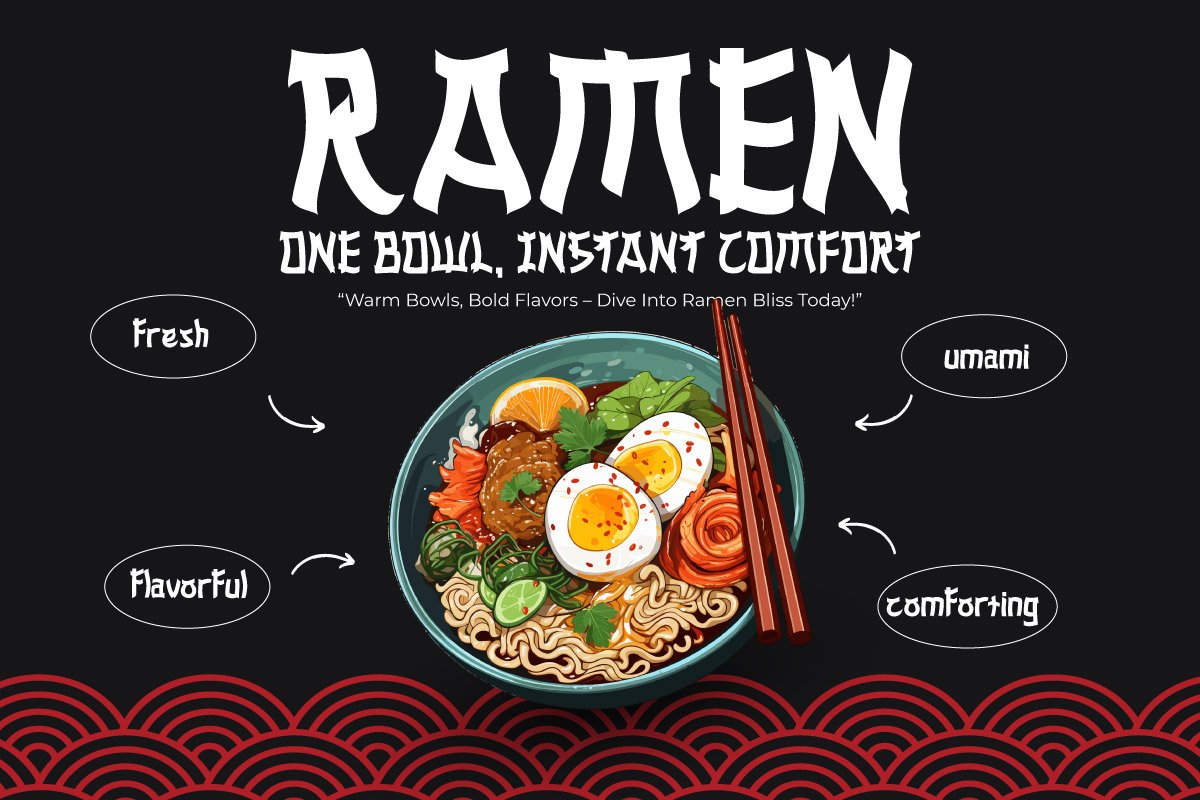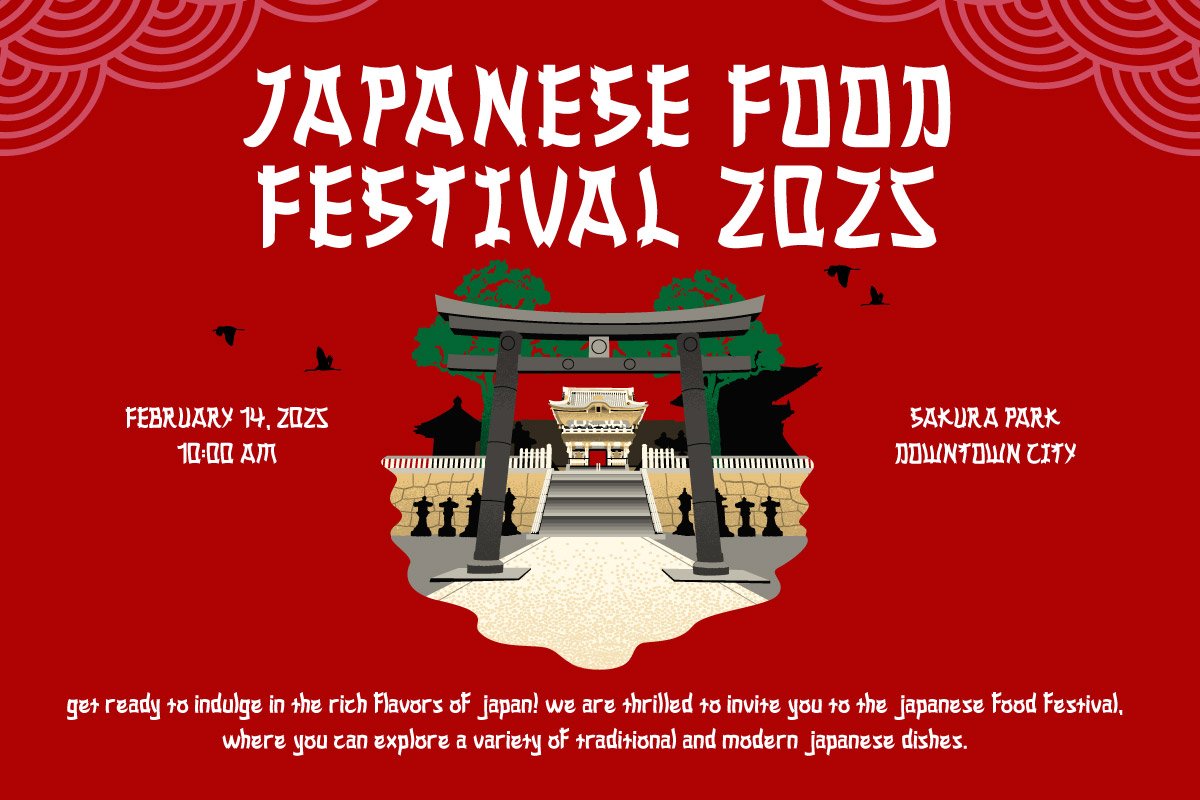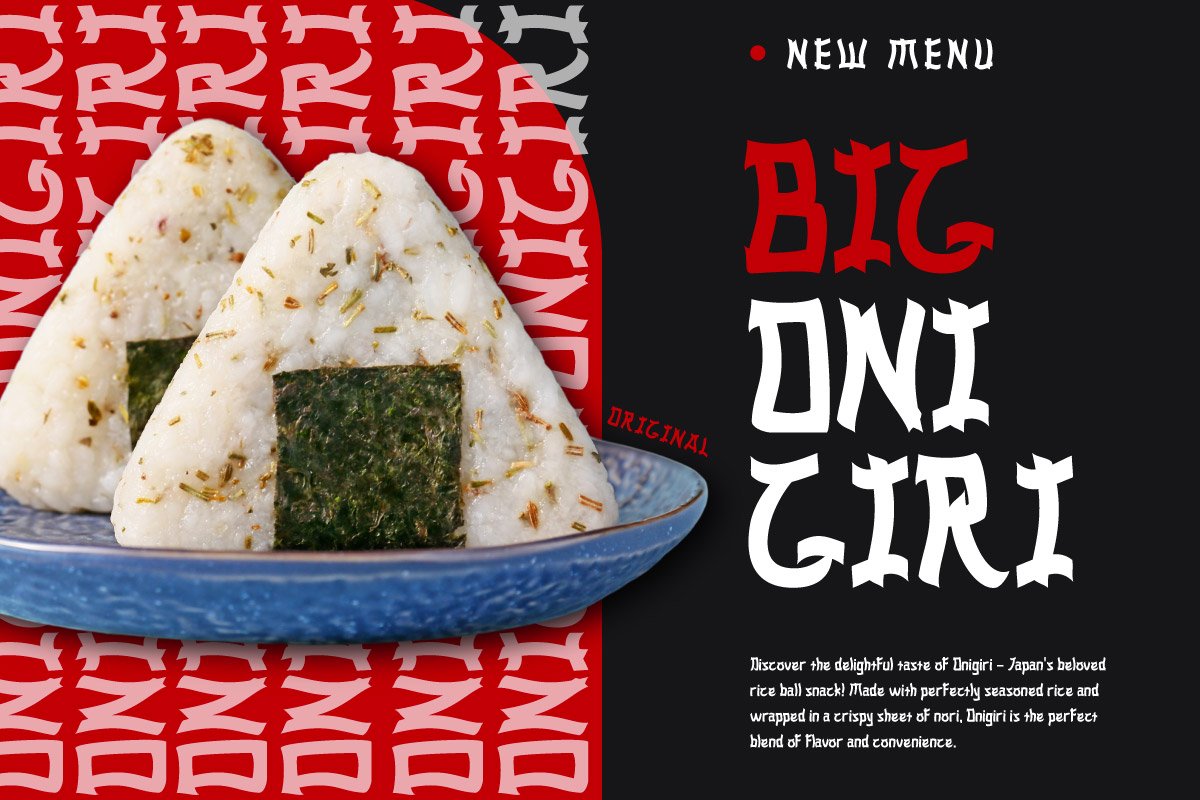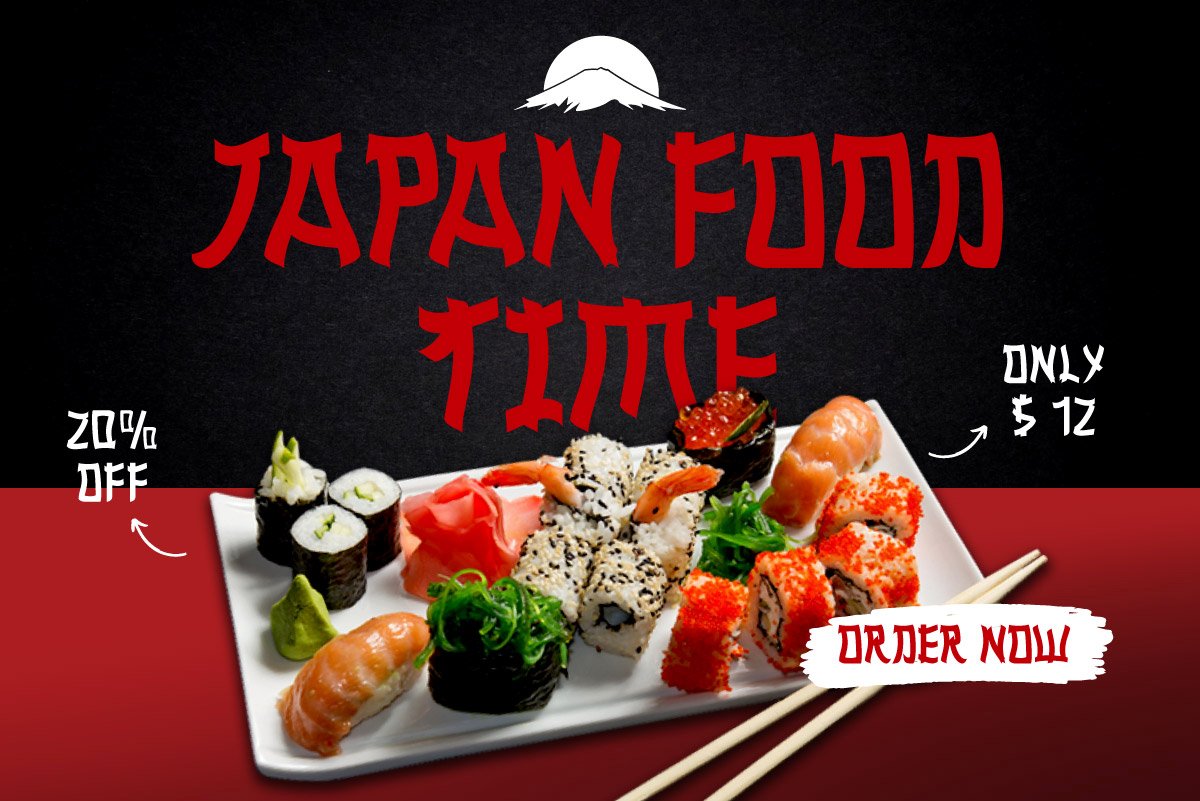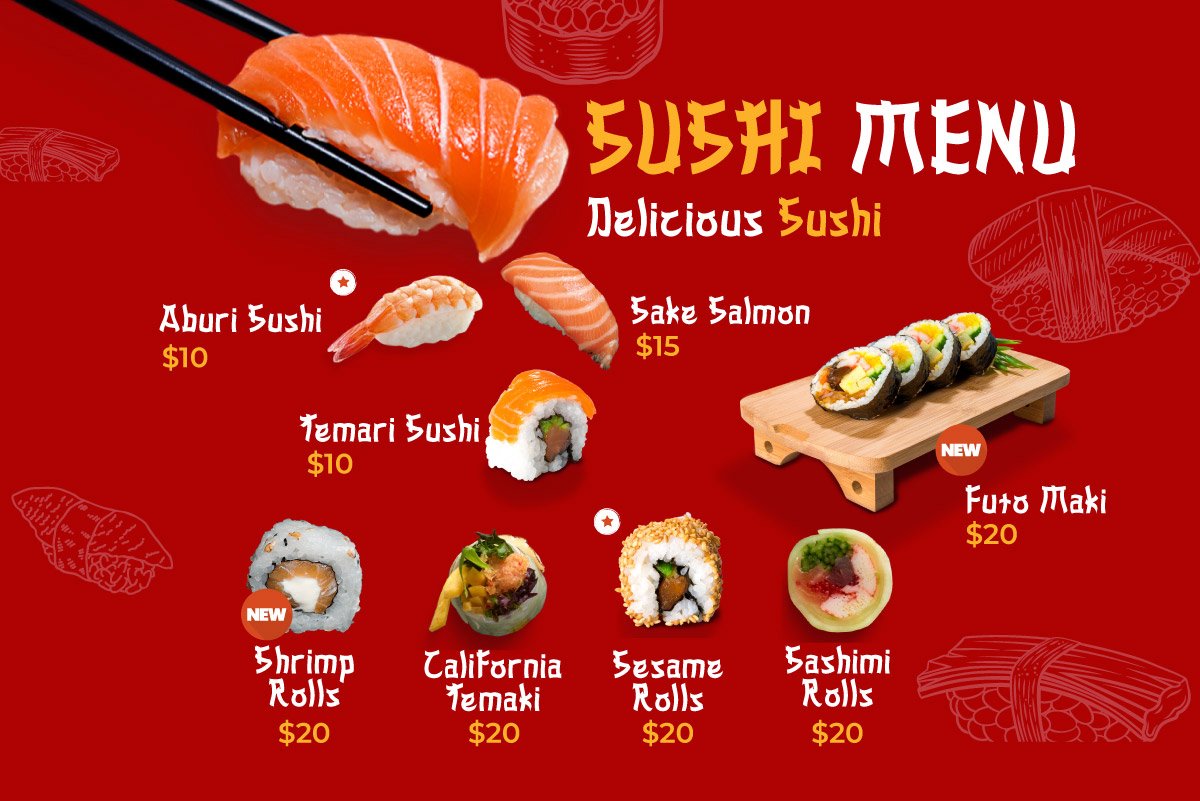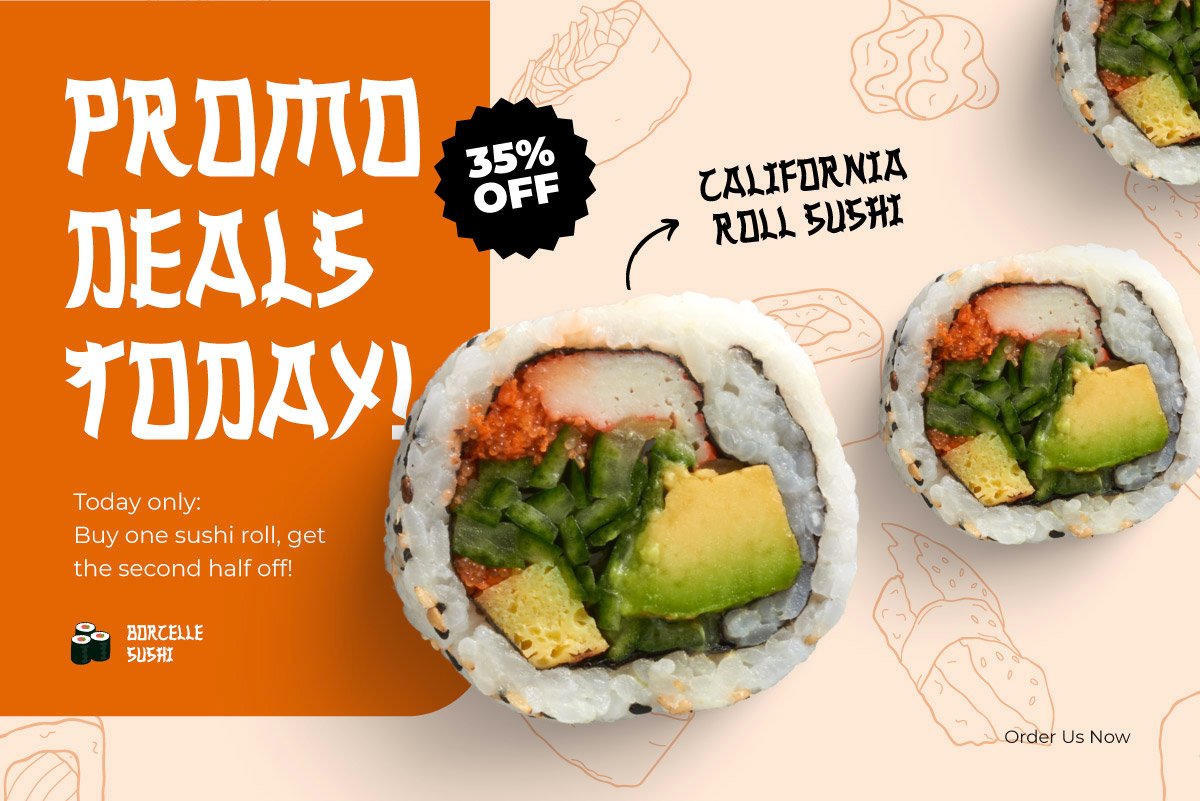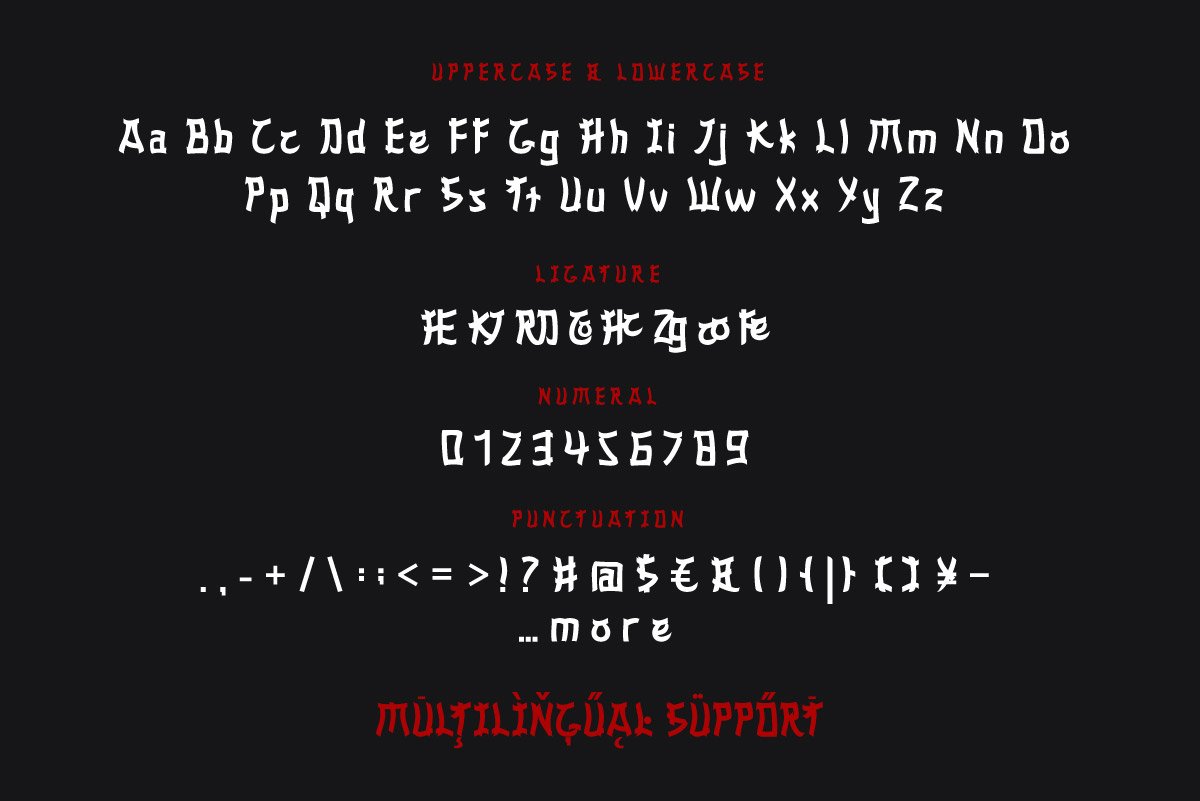
Shima – Japanese Style Font
Embrace the elegance of Japanese culture with SHIMA, a beautifully crafted typeface inspired by traditional brush strokes and modern aesthetics. Ideal for Japanese restaurant branding, menu design, event posters, and website headers, this font brings an authentic touch to your designs. Whether you’re creating a ramen shop logo, sushi bar menu, or cultural festival poster, SHIMA blends tradition with modernity for a stunning visual impact.